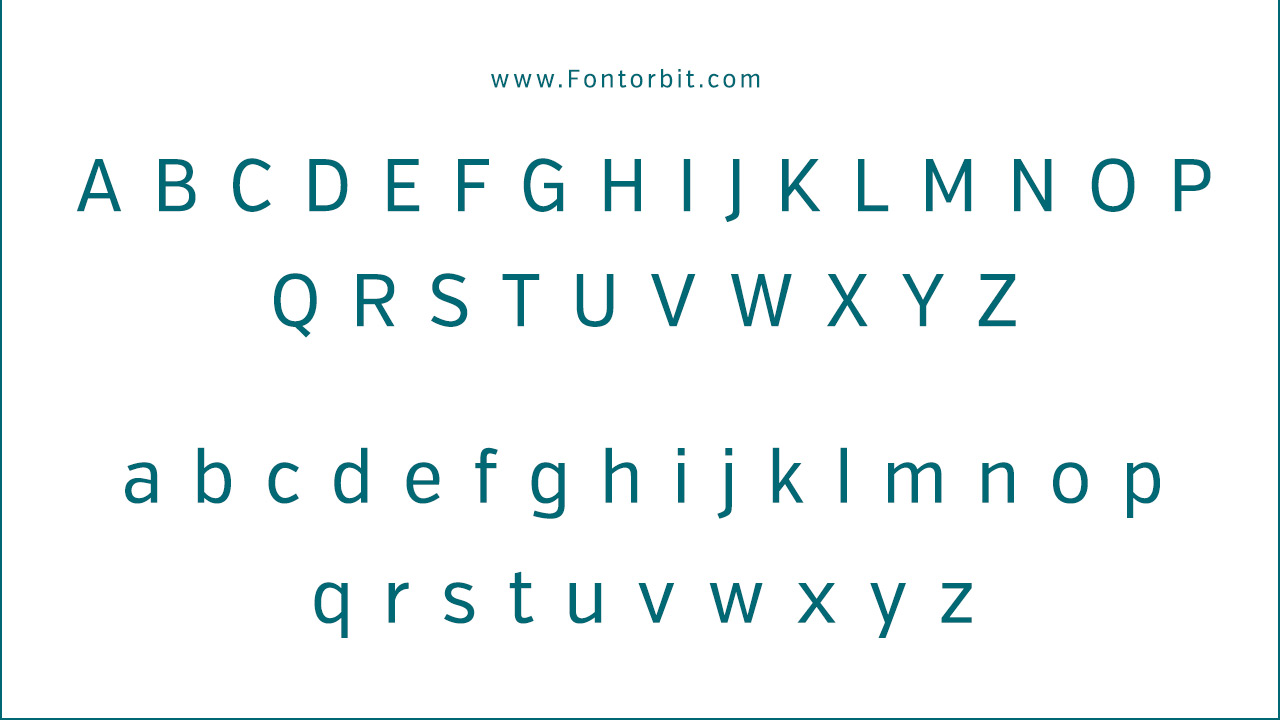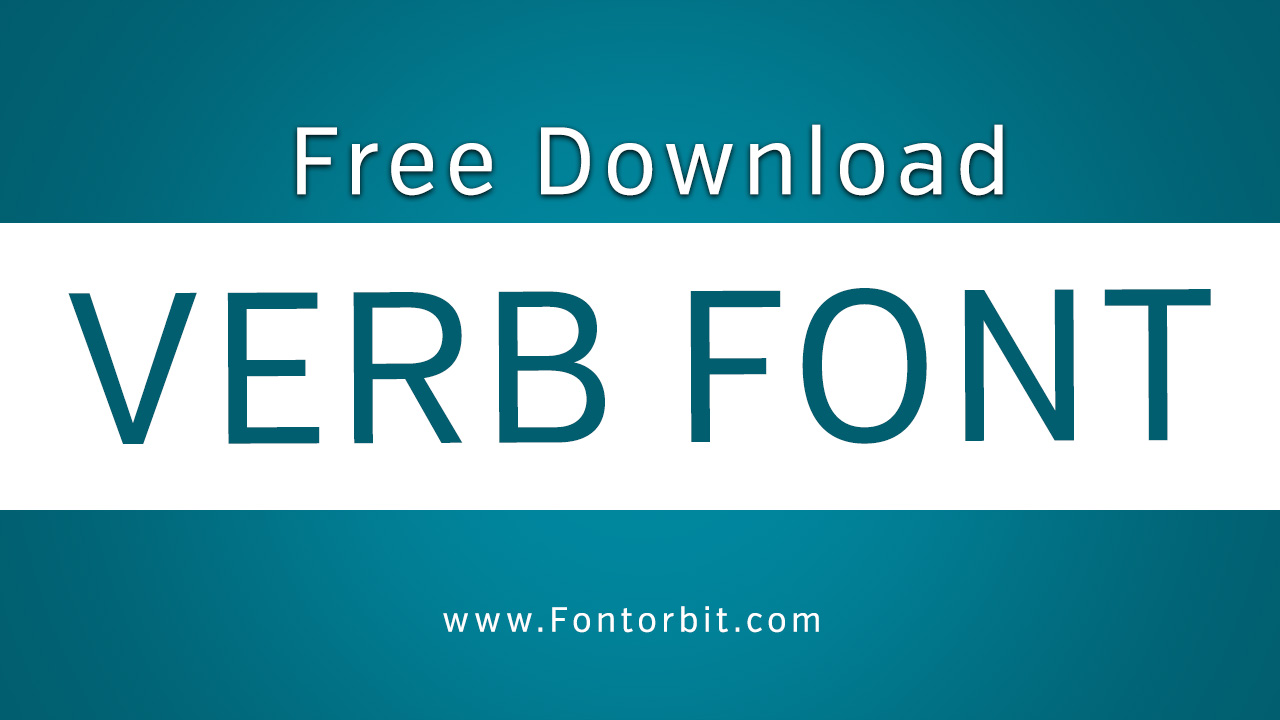
Verb Font is a dynamic and versatile sans serif superfamily that boasts a friendly, energetic, and confident style. It features 72 unique fonts designed by Ryan Martinson and released by Yellow Design Studio.
Verb Font performs exceptionally well at both text and display sizes, providing legibility for smaller fonts while showcasing personality and liveliness at larger sizes. With four subfamilies—Regular, Condensed, Extra Condensed, and Compressed—it offers a wide range of options suitable for various design needs.
Verb Font offers exceptional flexibility, making it suitable for a wide range of design projects, including:
- Text Content: Verb Font’s legibility makes it ideal for body text in both print and digital formats.
- Headlines: Its lively character at larger sizes makes it perfect for attention-grabbing headlines.
- Branding: Verb’s confident yet approachable style is excellent for logos and brand identity.
- Advertising: The wide range of weights and subfamilies allows for dynamic use in marketing materials, from posters to billboards.
- UI/UX Design: Its clarity and readability work well for user interfaces and digital design.
Verb Font stands out as a dynamic and versatile sans-serif superfamily, offering a wide array of styles designed by Ryan Martinson.
Its energetic and confident style and extensive range of weights and forms make it a top choice for various design applications. Verb Font’s legibility and character ensure it delivers excellent results.
Verb Font is a 72-font sans serif superfamily designed by Ryan Martinson. Its friendly and energetic style makes it versatile for both text and display use.
Verb Font includes four subfamilies: Regular, Condensed, Extra Condensed, and Compressed. Each subfamily has nine weights, from ExtraLight to Ultra, with italic versions for each.
Verb Font’s personality shines in its lively shapes and versatile subfamilies. Its over 800 glyphs support multiple languages and typographic features.